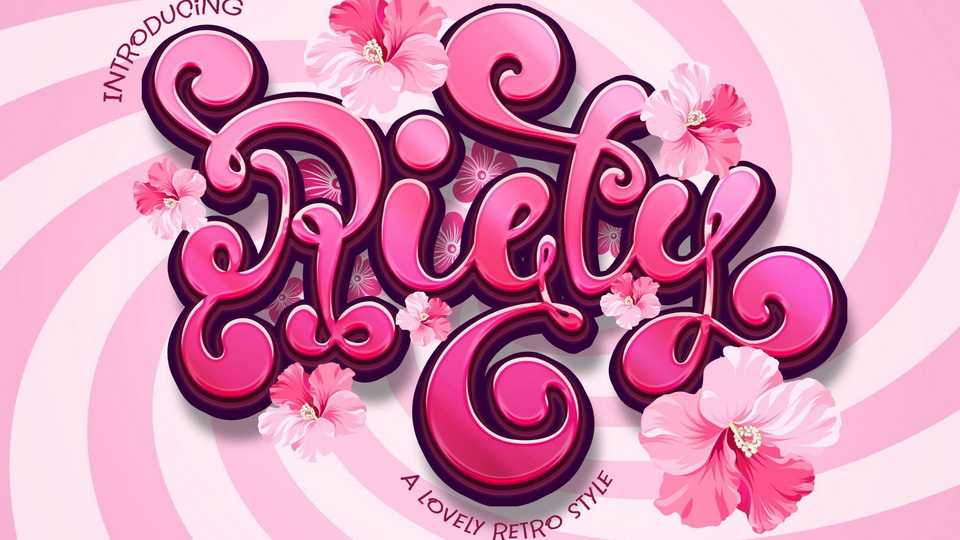
Download Riety font, a lovely retro-style handwritten typeface. Riety is perfect for wedding-related projects, Christmas cards, branding, logos, mugs, posters, invitations, and more.
Designer: Ake Thanantreesak